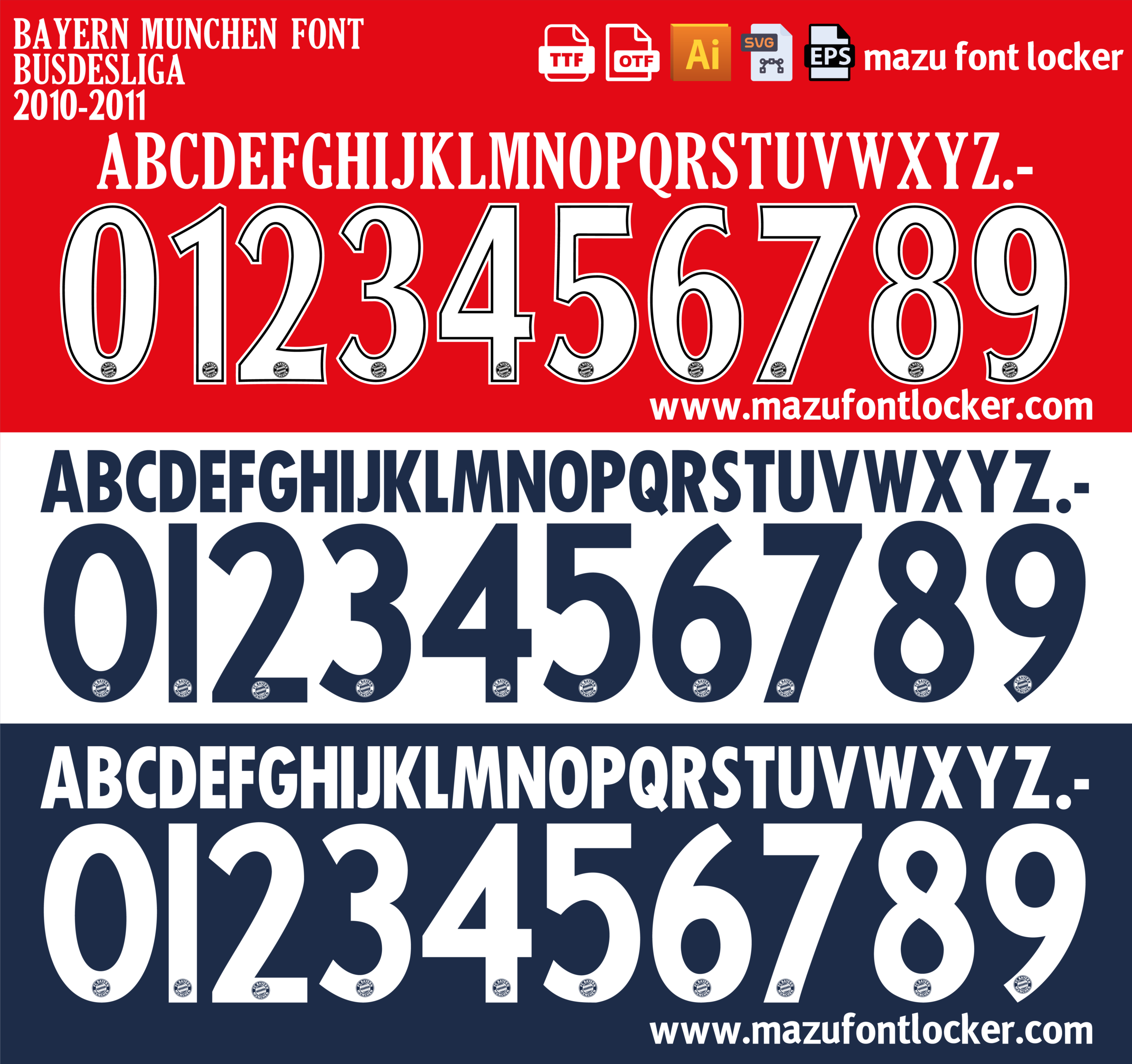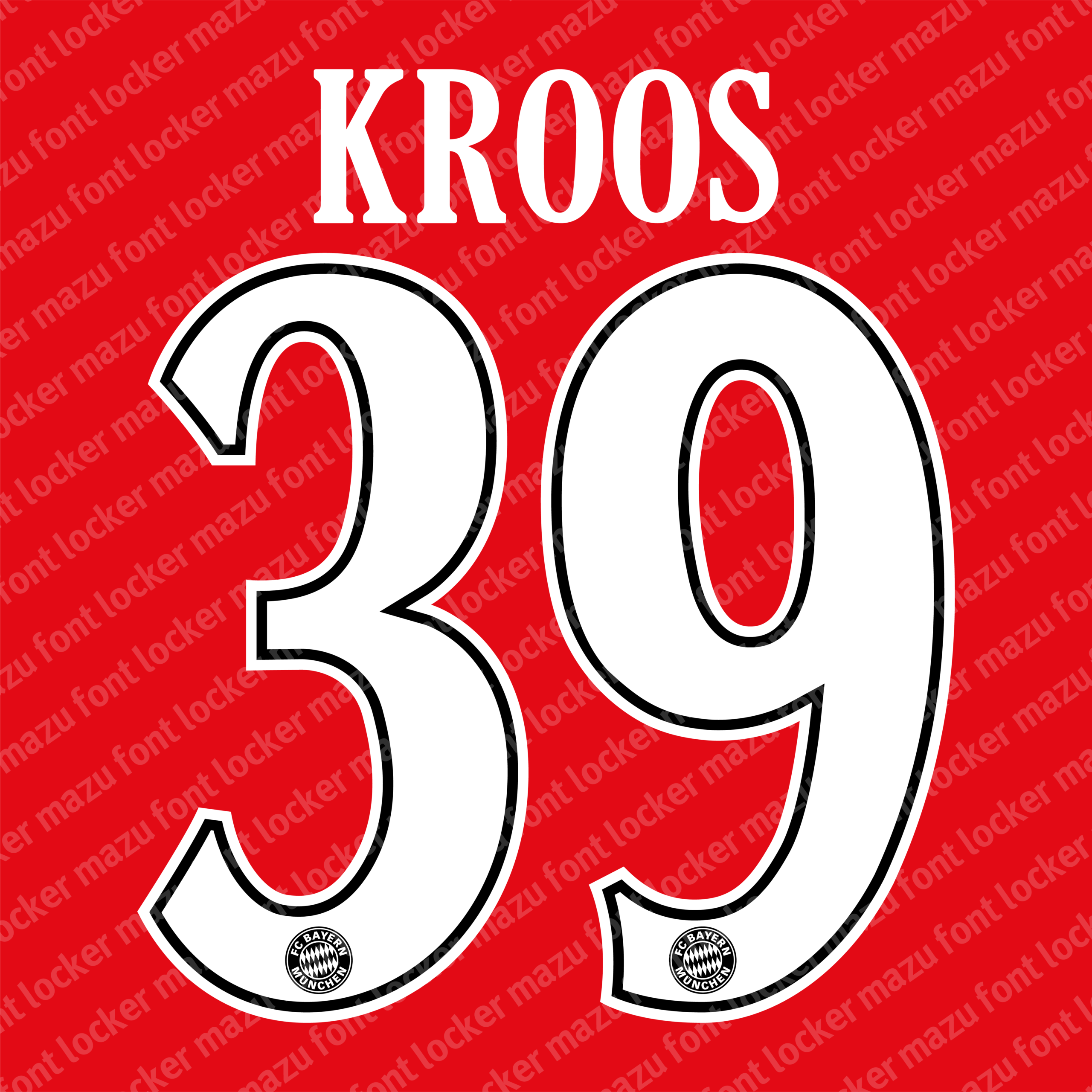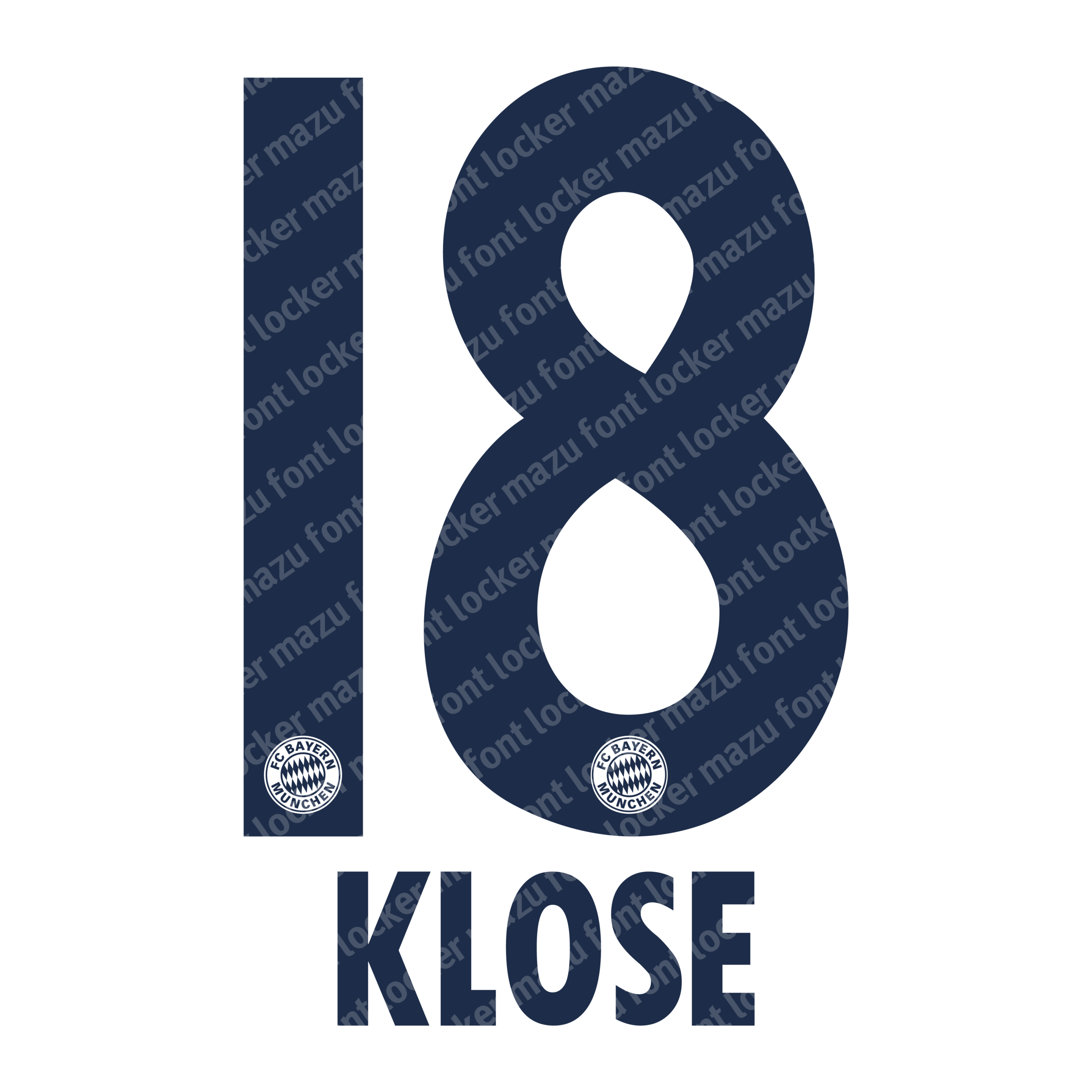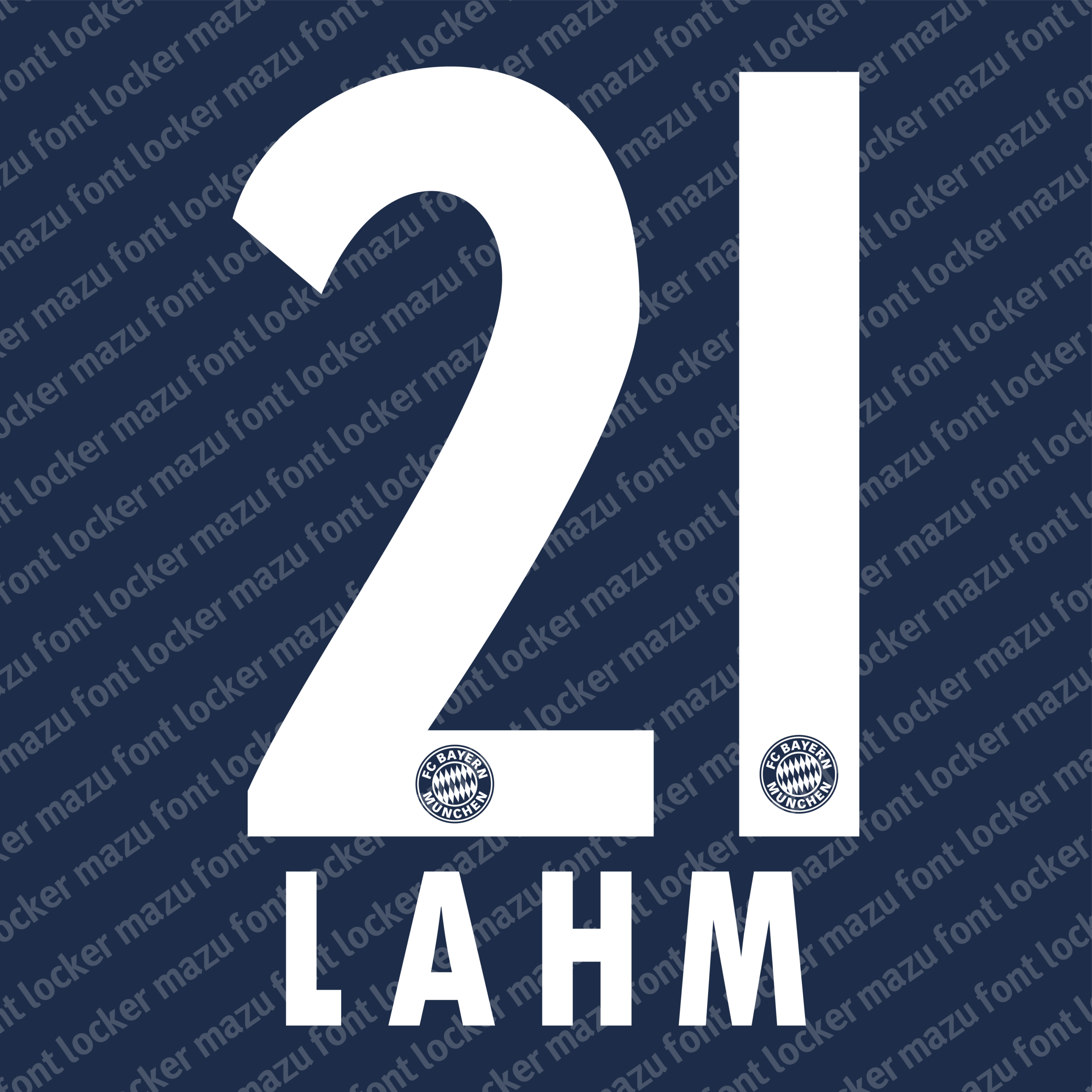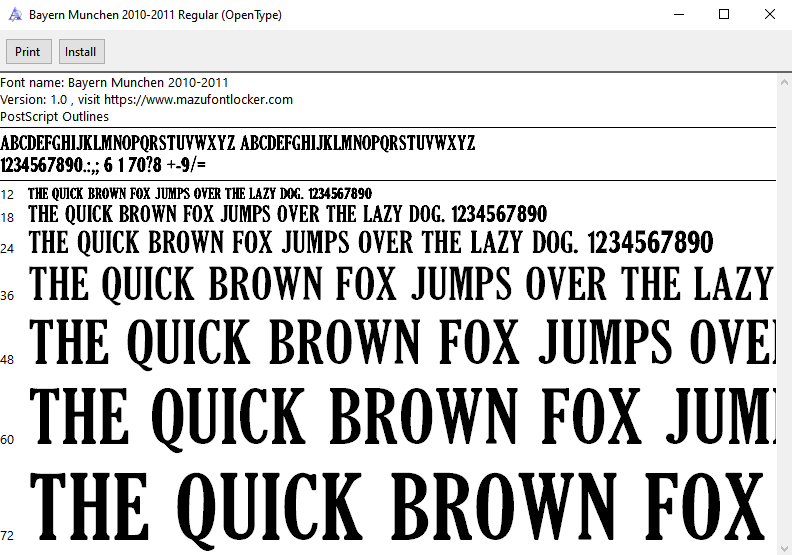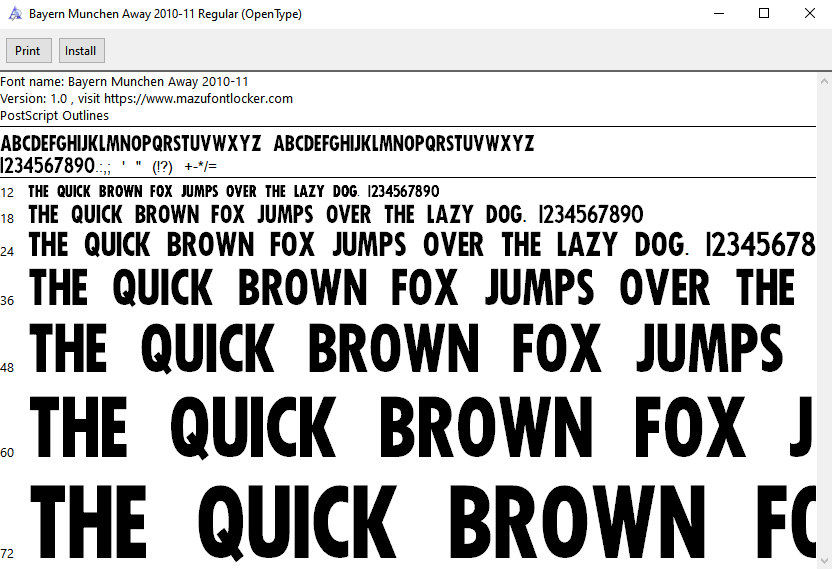
Bayern Munchen 2010-11 Font Vector
Bayern Munchen 2010-2011 font, names and numbers, fully editable VECTOR file for customisation.
Complete design with the Bayern Munchen 2010-2011 numbering and lettering for the Champion League and Bundesliga Match .